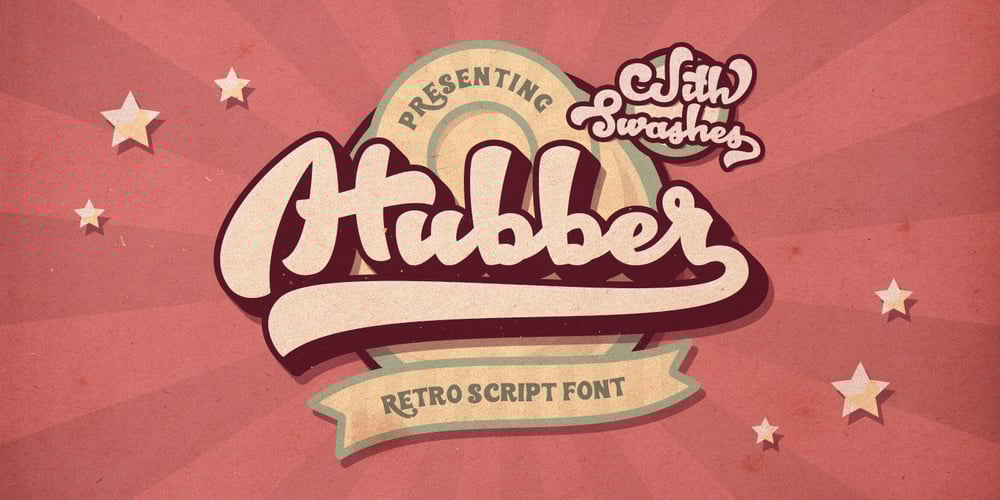
Hubber
Hubber font
Hubber Font Family was designed by Vladimir Tsagolov and published by LomoHiber. Hubber contains 2 styles and family package options. Presenting my font called Hubber. This font has been inspirited by product retro posters from 60s-70s. I tried to make letters as much streamlined and gentle as possible. I hope you’ll enjoy how sweet it came up. Hubber consists of​ such features as swashes, alternate glyphs, ligature, ​ and additional shadow font. Hubber perfectly fits for retro designed logos, posters, prints. Hubber Features: Up to 19 alternates for each letter with swashes Contextual alternates feature will automatically match alternate letters depending on their position or pairing 21 ligatures Shadow effect font to save your time. Just place the ​layer with Shadow font behind Regular to make the shadow effect Carefully tuned kerning (preview above doesn’t show it for some reason) If you have some issues, questions, please let me know: lhfonts@gmail.comHope you’ll enjoy using Hubber!